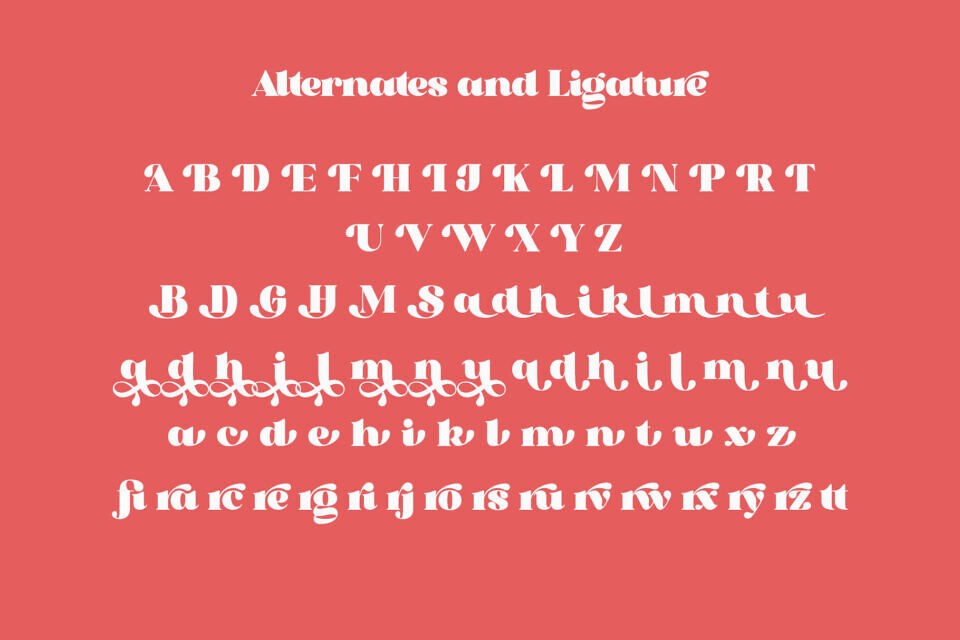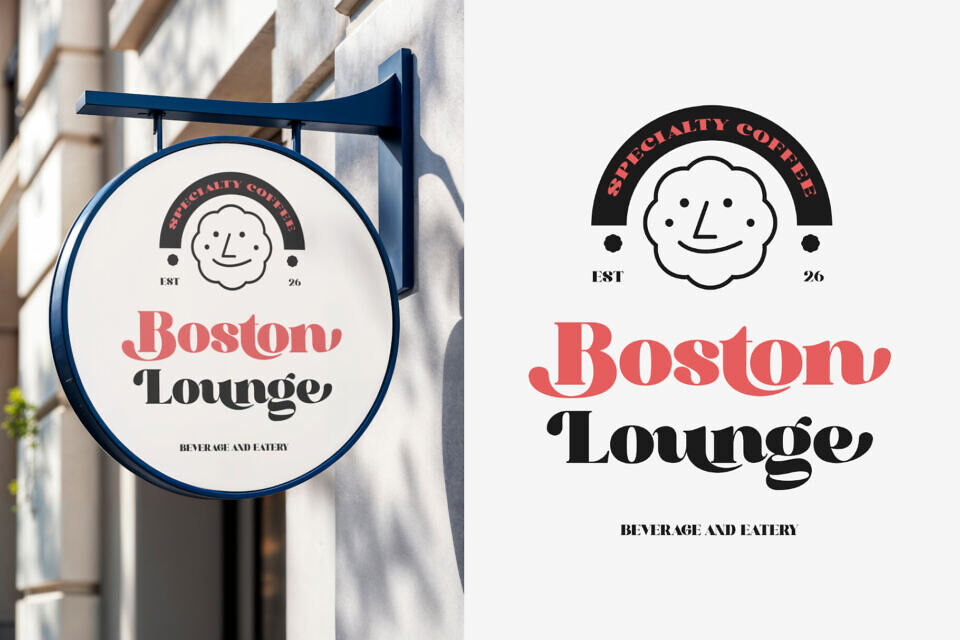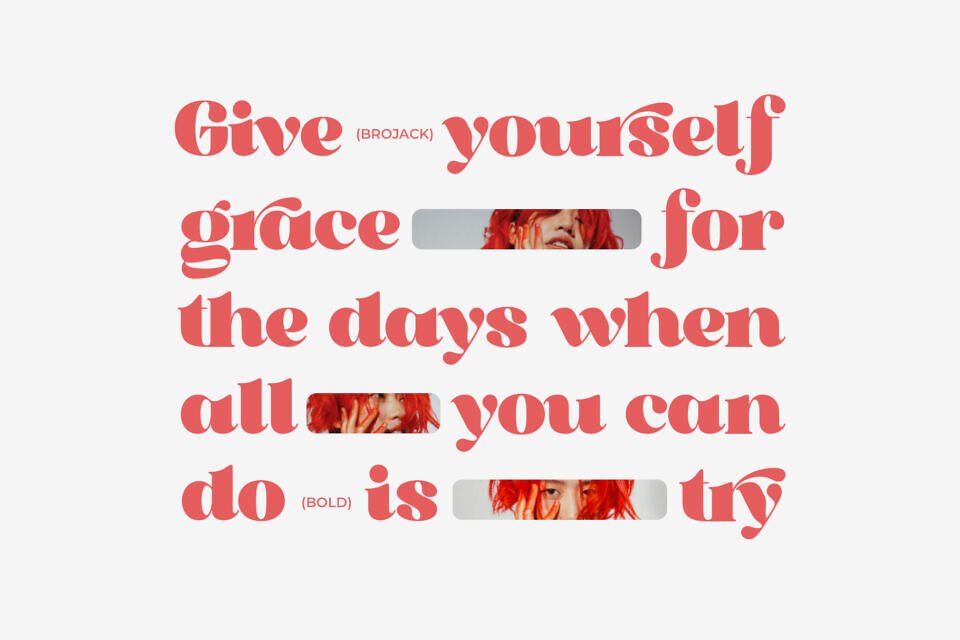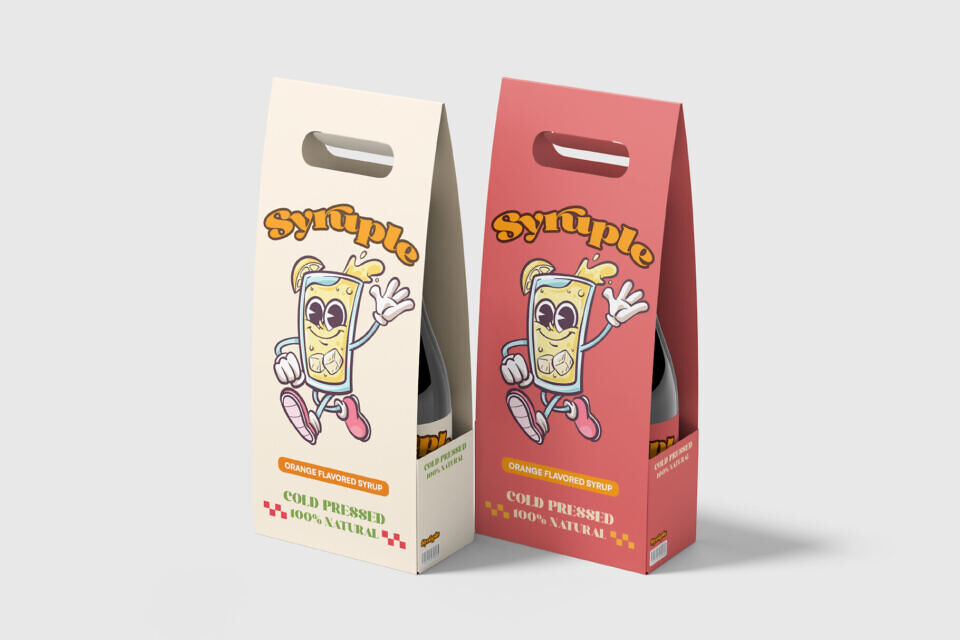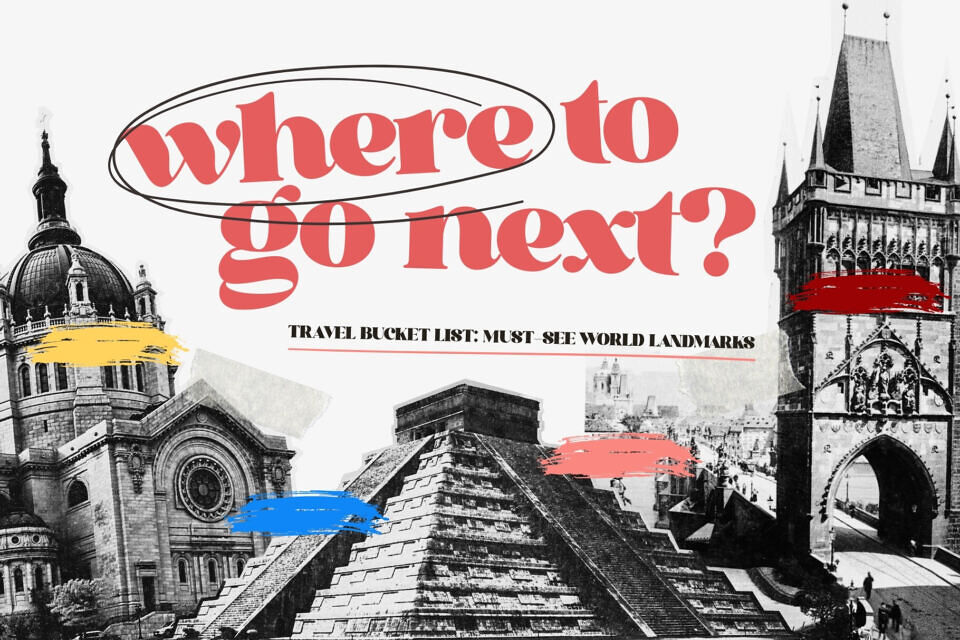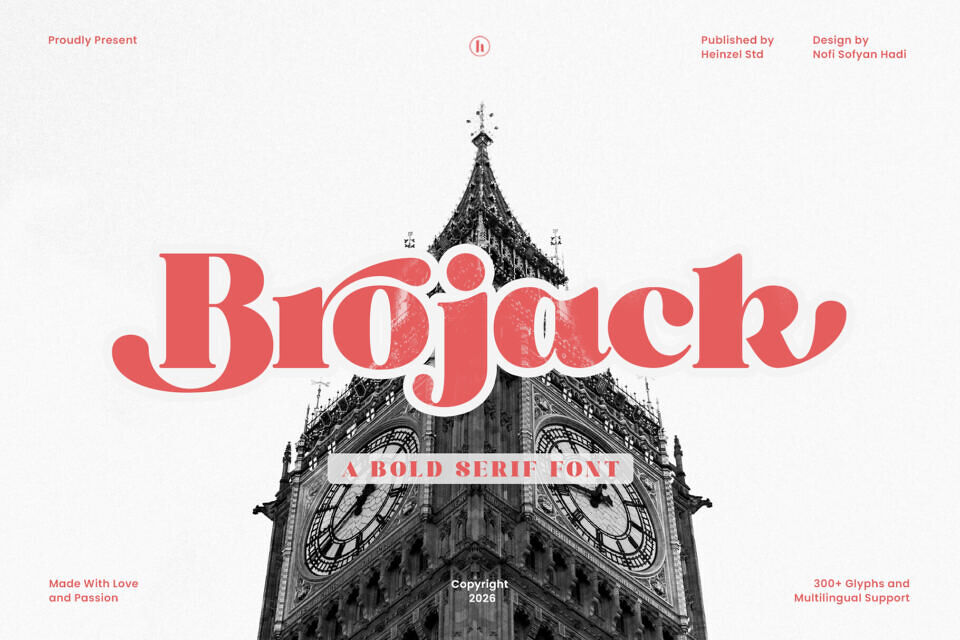
Brojack Font
Brojack is a bold retro serif font inspired by classic vintage typography with a modern twist. Its strong curves, thick strokes, and elegant serifs make it perfect for branding, logos, posters, packaging, headlines, and editorial designs. Brojack delivers a nostalgic yet stylish look, ideal for retro-themed projects, fashion brands, creative studios, and display typography.